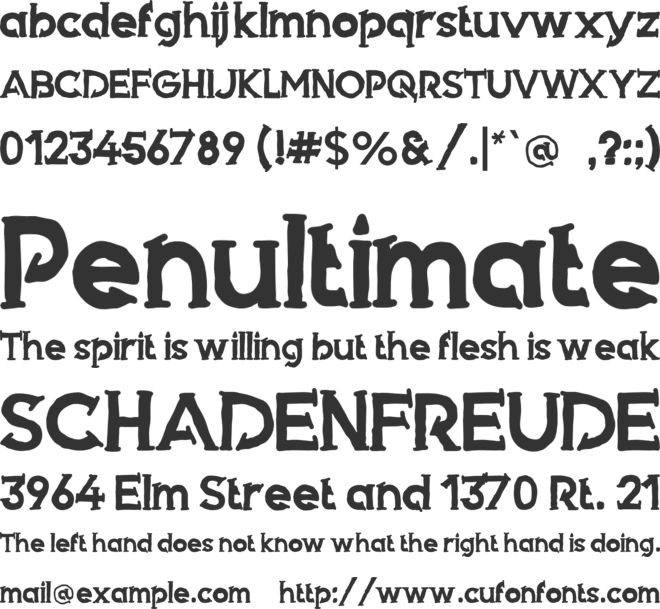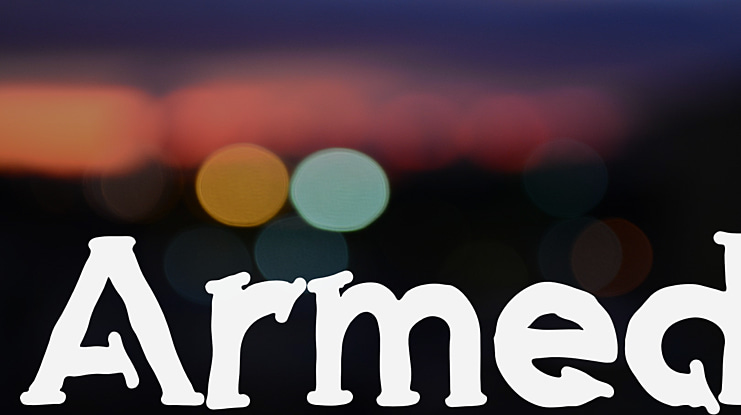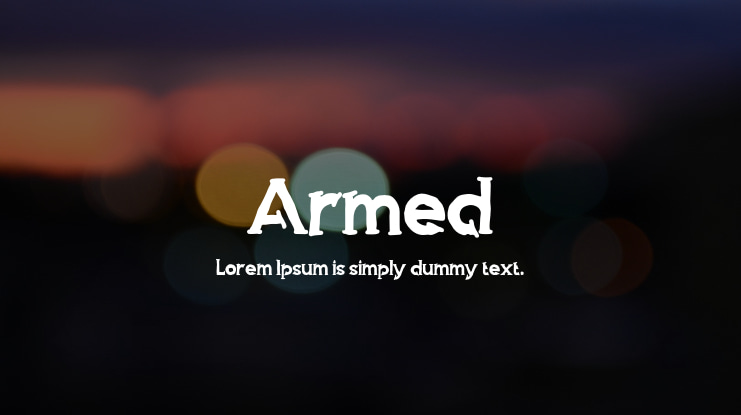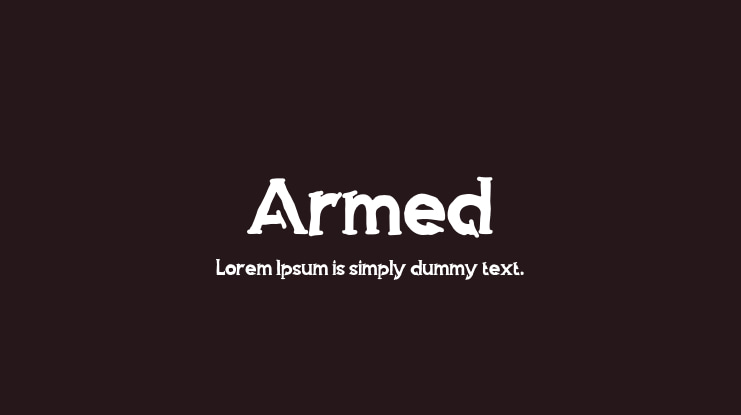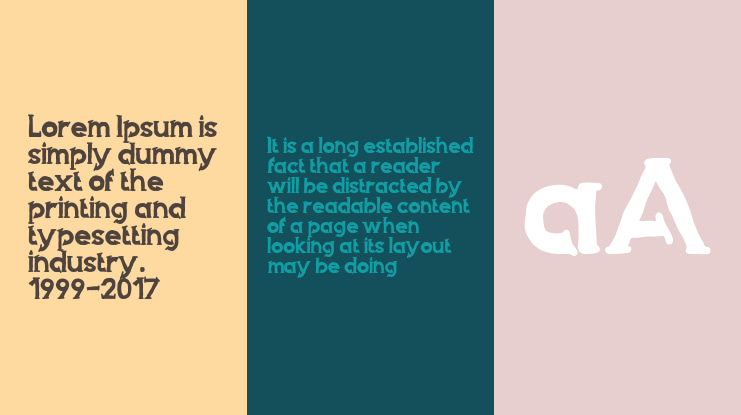
Armed Font
zatari
this Armed font is new font with new style of army font, that great for header or tittle of your designthis font have a heavy style and handlettering characterso this font look cute but strongfor more info comment below